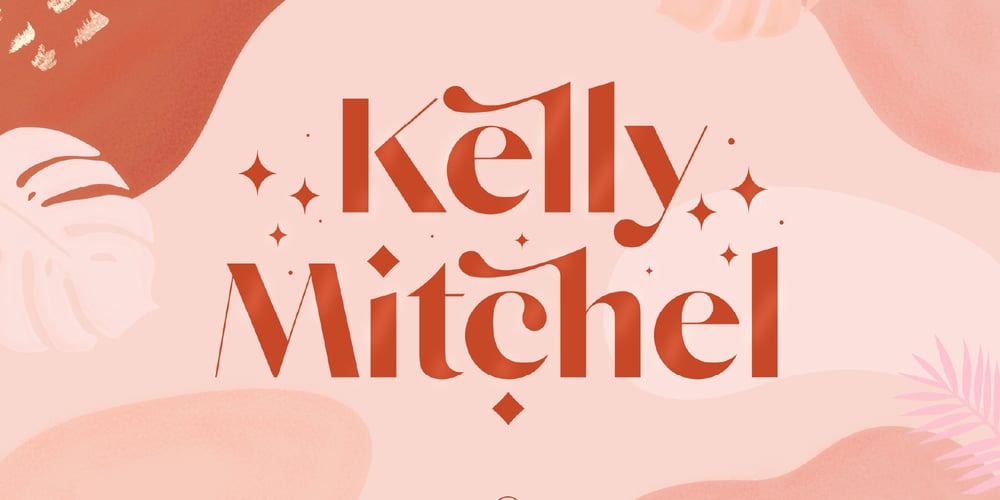
Kelly
Kelly font
Kelly Font Family was designed by Kurt Harahap and published by Kaligra.co. Kelly contains 3 styles and family package options. Kelly is Sans serif Version of Mikela Typeface. It is a Bold Minimalist Elegant Modern vintage font with beautiful ligatures, tons of special alternative glyphs, ornament and multilingual support. It’s a very versatile font that works great in large and small sizes. Perfect for branding projects, Logo design, Clothing Branding, product packaging, magazine headers, or simply as a stylish text overlay to any background image.HOW TO ACCESS ALTERNATE CHARACTERSOpen glyphs panel:In Adobe Photoshop go to Window – glyphsIn Adobe Illustrator go to Type – glyphs